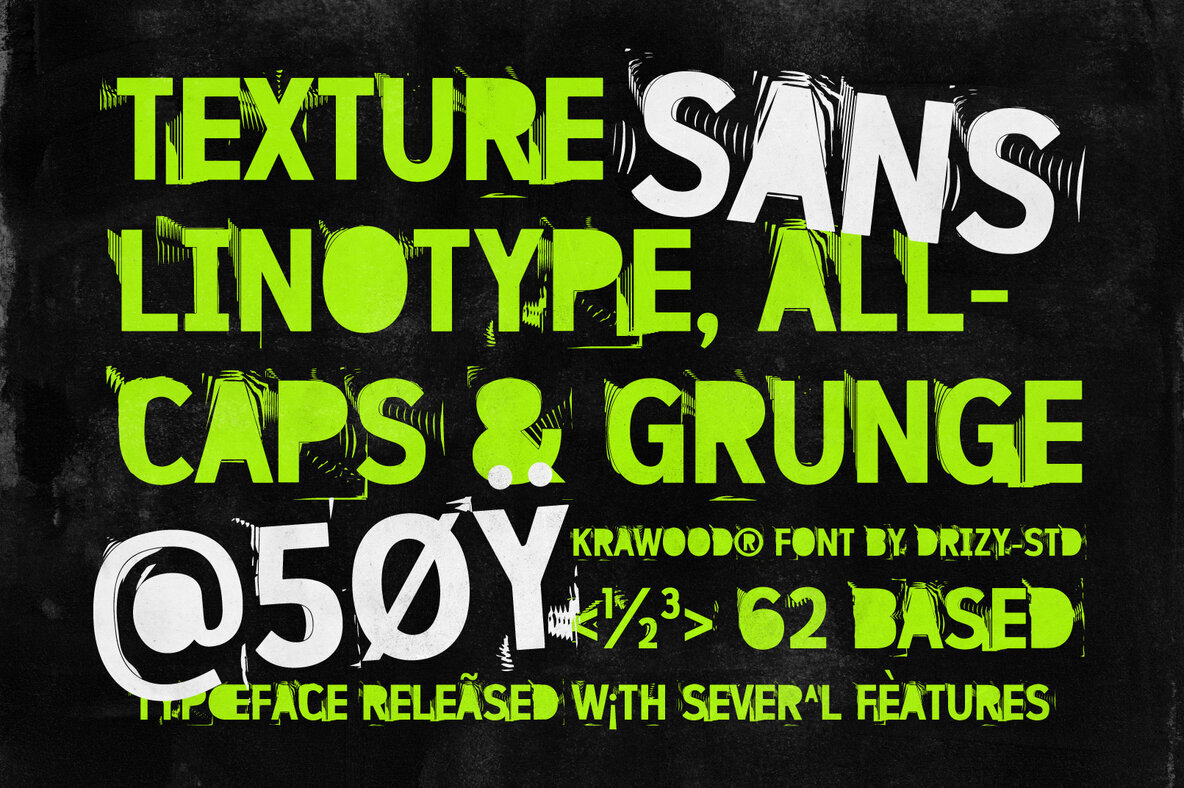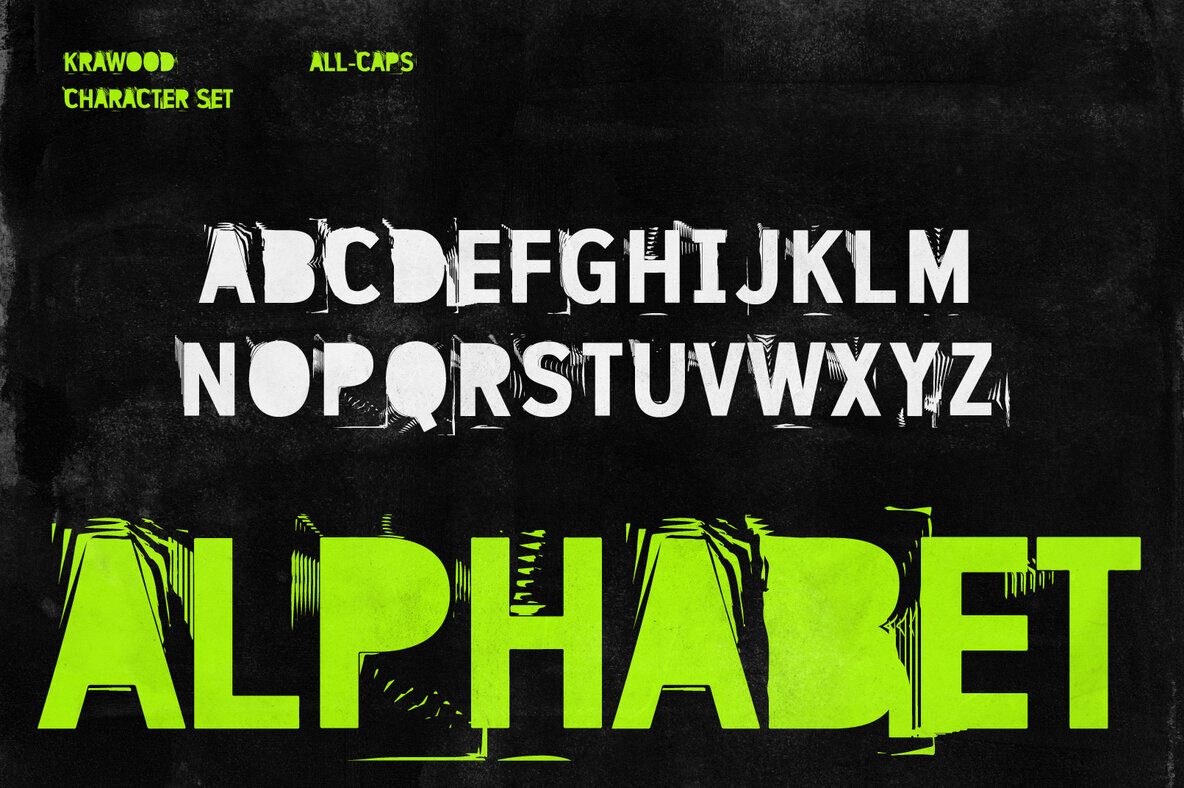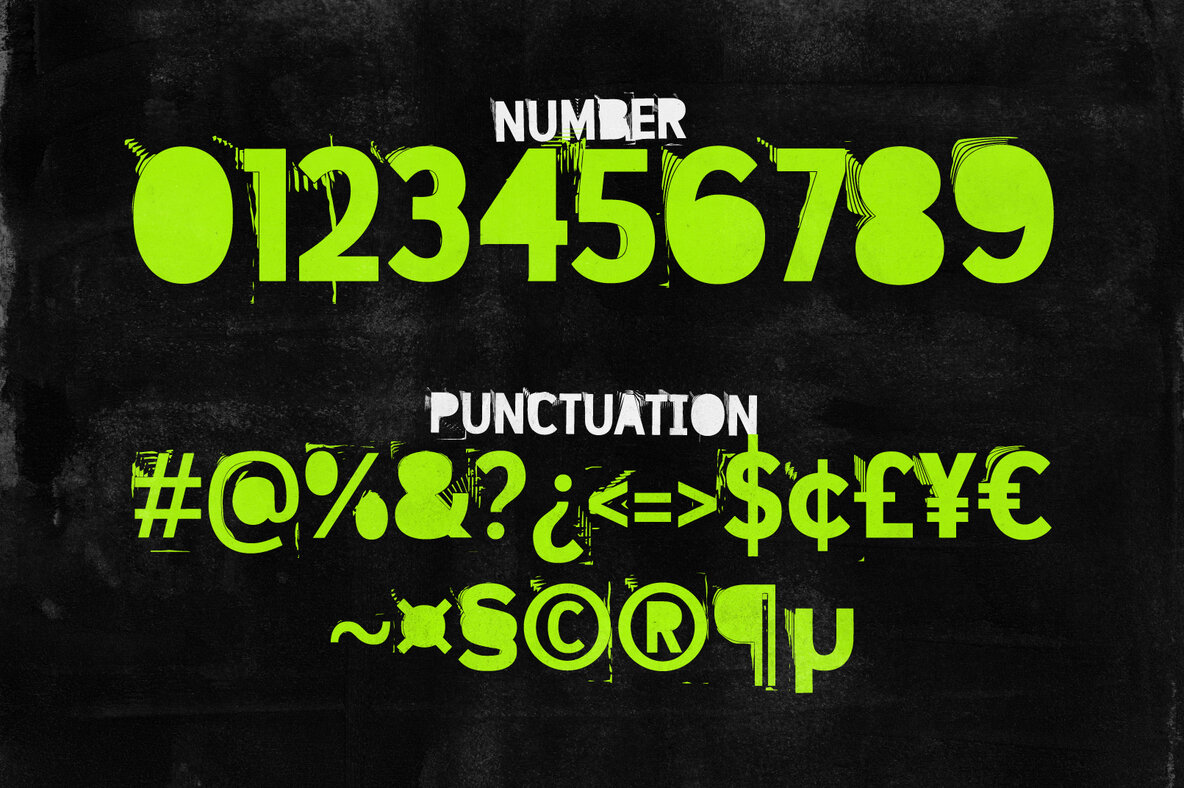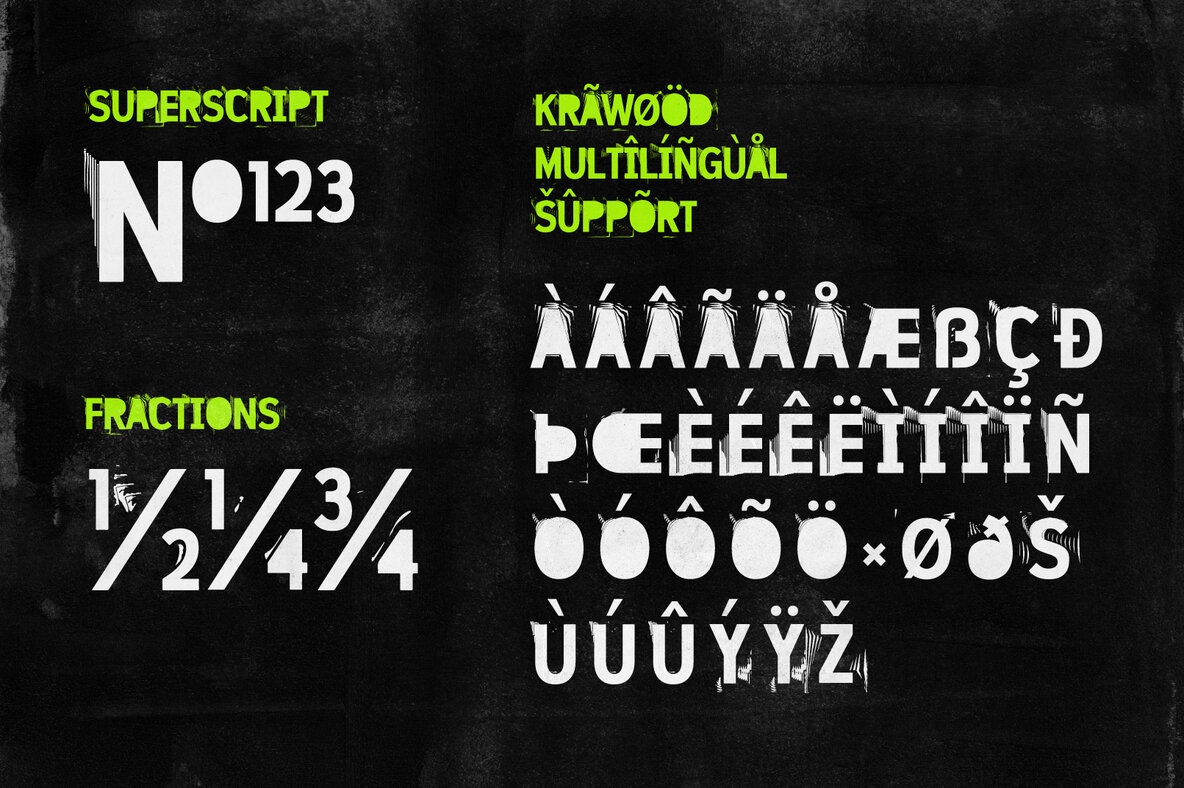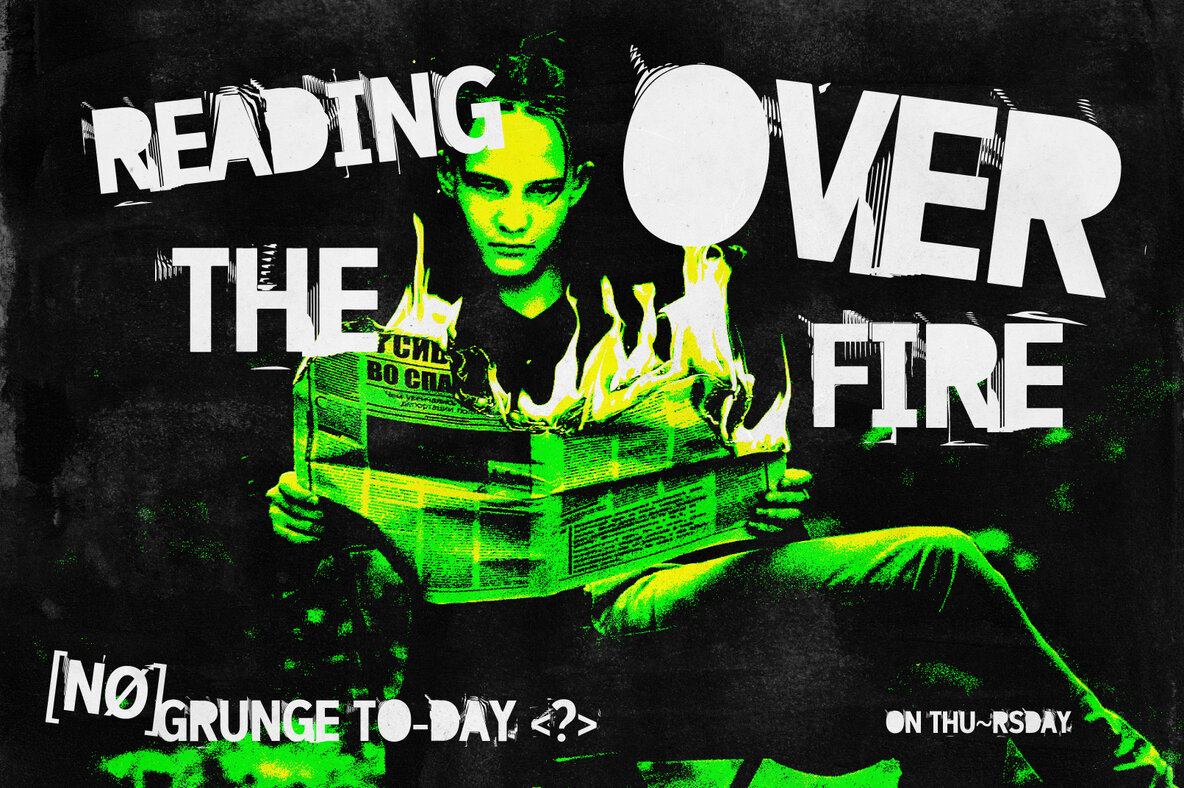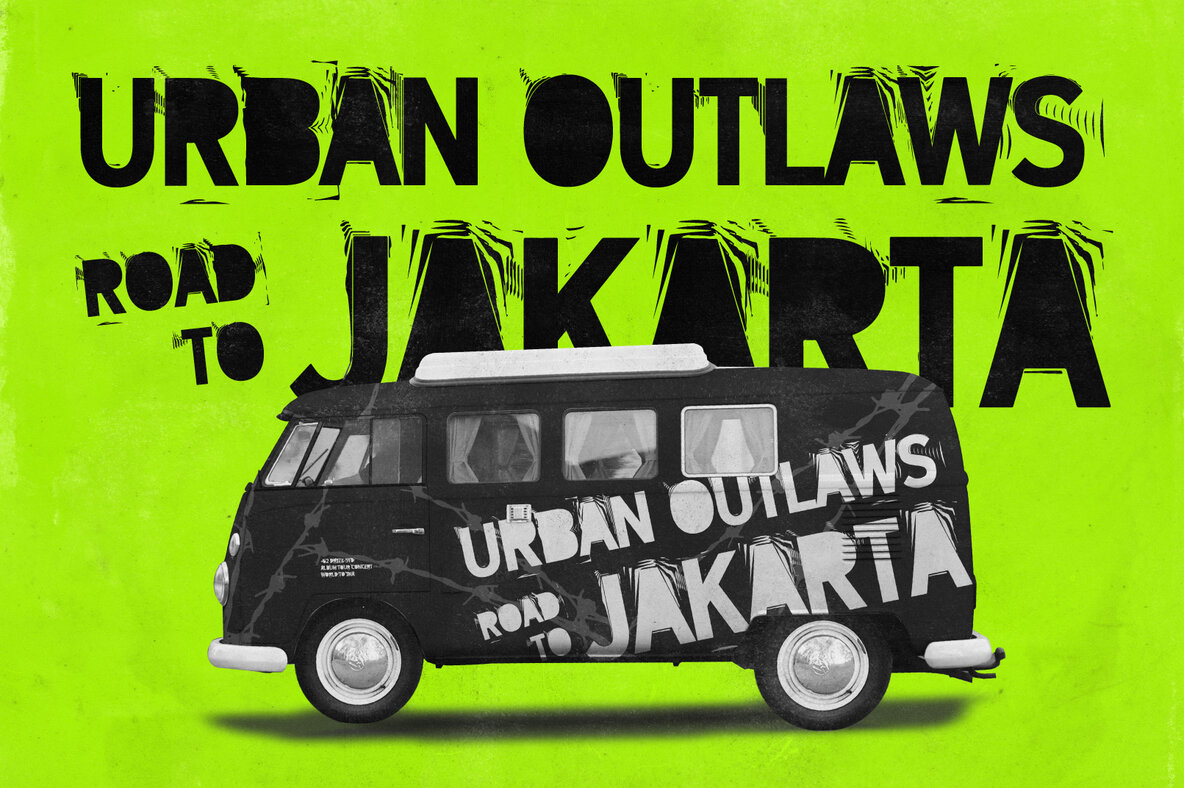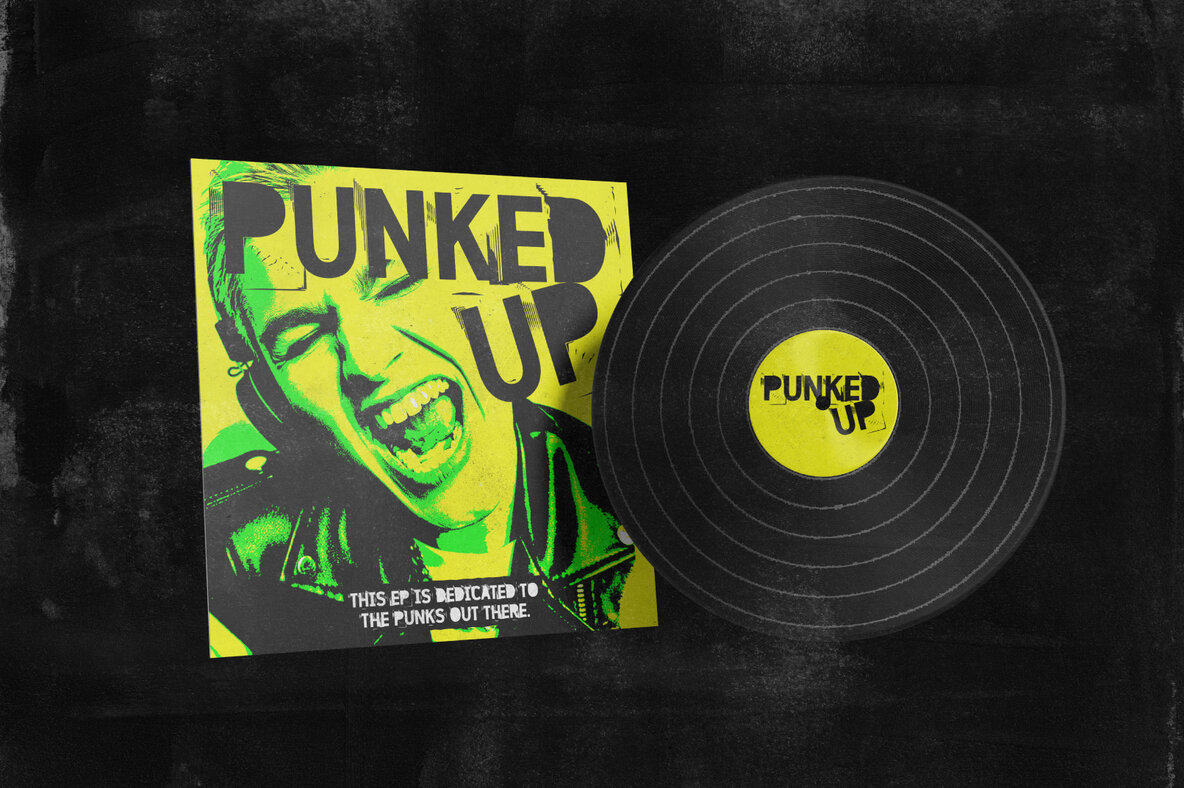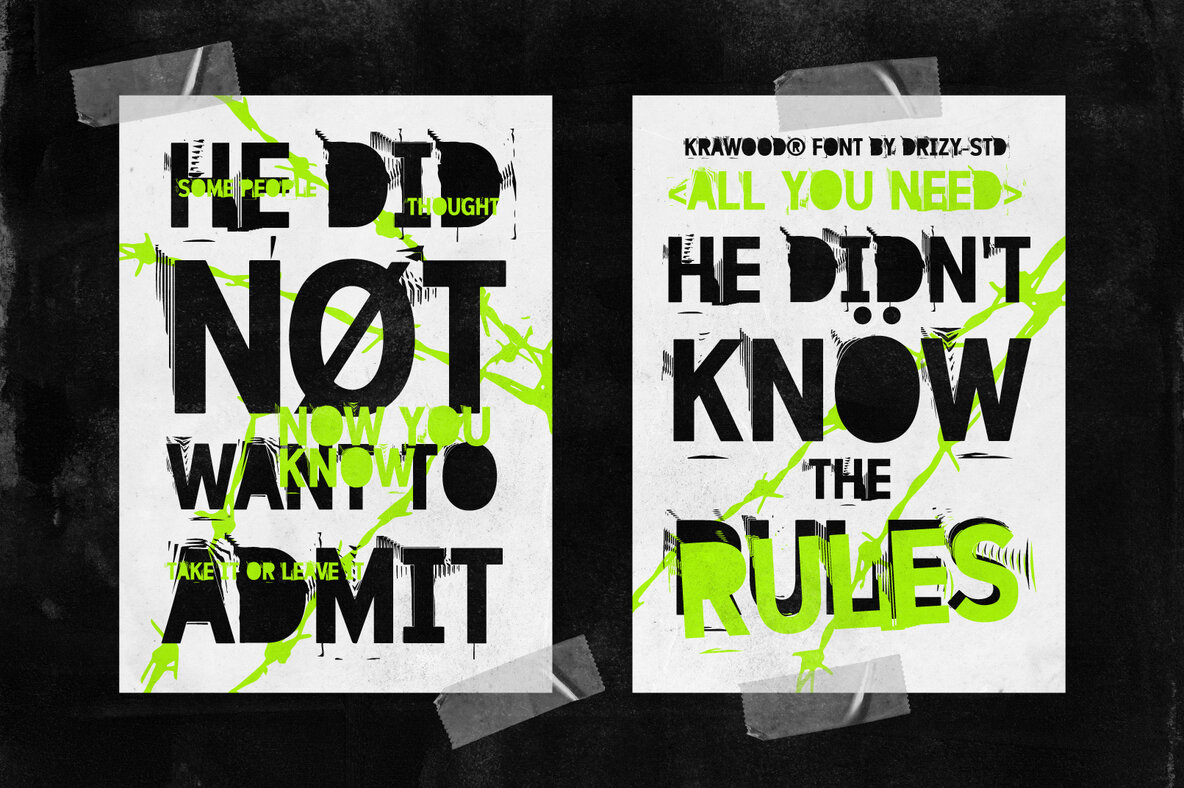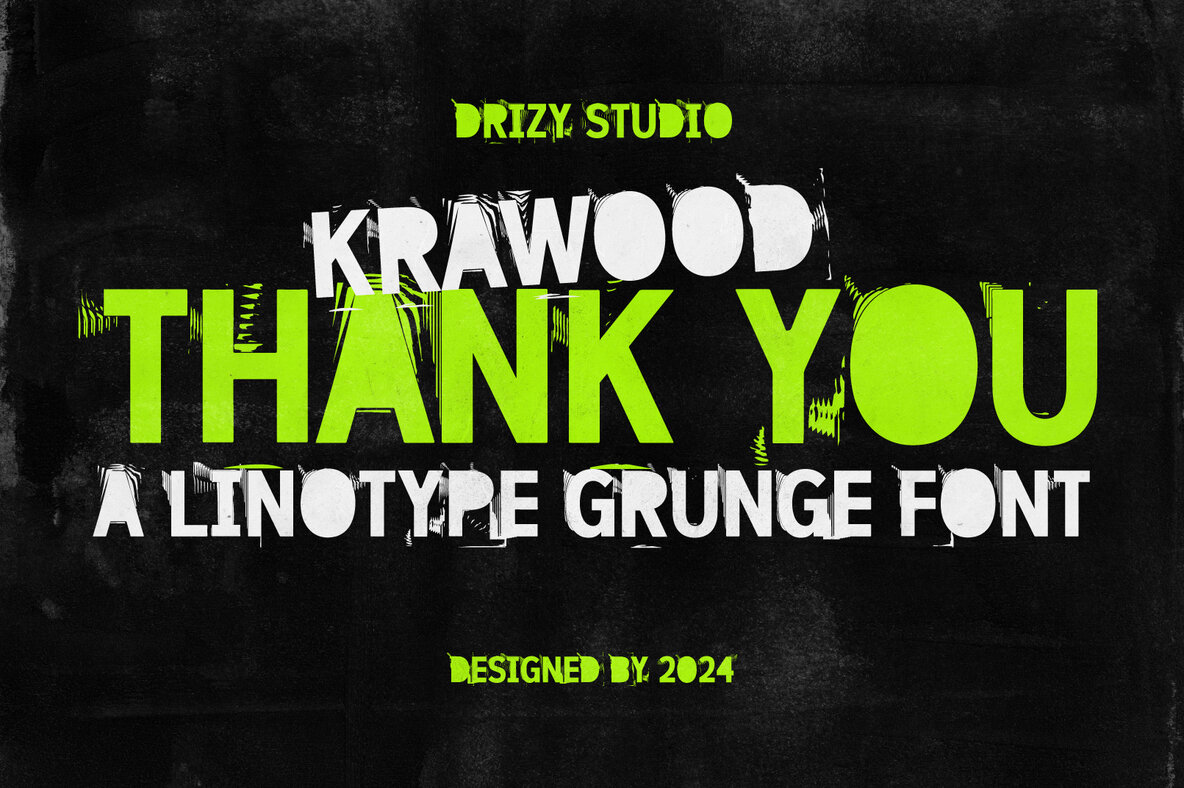
Krawood Font
Krawood Effect
Krawood, a unique member of the Linotype Grunge Pointillism Font collection, captures the raw energy of urban street art combined with the detailed precision of pointillism. This font stands out by pushing the limits of traditional typography, offering a design that's both chaotic and controlled, rough and refined.
Krawood comes with an all-caps character set, punctuation, numbers, and multilingual support, making it a versatile choice for various design projects. It's ideal for graphic designers seeking to infuse their work with a distinct, edgy aesthetic.